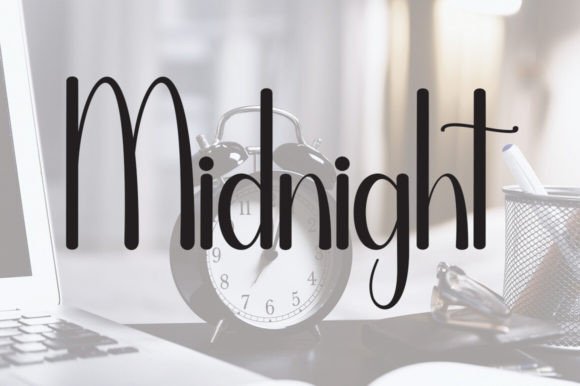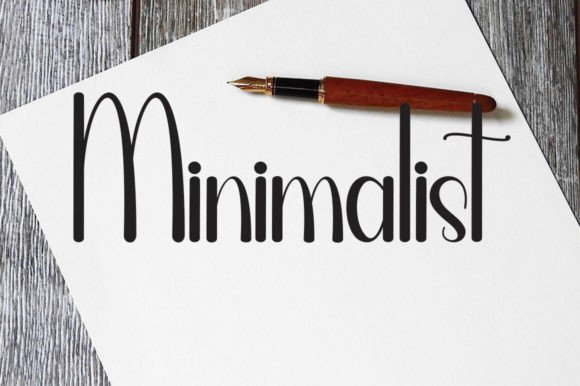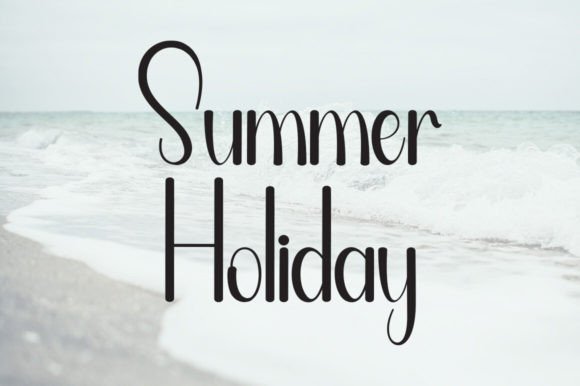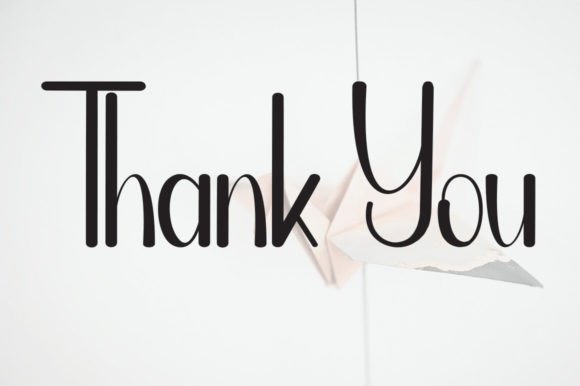
Burger Font: Adding a Touch of Whimsy to Your Designs
Are you looking for a font that can add a dash of sweetness and romance to your designs? Look no further than the Burger Font! This beautiful, cursive handwritten font is perfect for a variety of design projects, from branding and packaging to wedding invitations and social media graphics.
What is Burger Font?
Burger Font is a sweet and cursive handwritten font that is designed to bring a touch of whimsy and playfulness to your designs. Its gentle curves and flowing lines make it perfect for creating beautiful, eye-catching text that will capture the attention of your audience.
Key Features of Burger Font
- Sweet and Cursive Handwritten Style: Burger Font features a beautiful, cursive handwritten style that is perfect for adding a touch of elegance and sophistication to your designs.
- Versatile and Flexible: This font is highly versatile and can be used on a variety of design projects, from logos and branding to social media graphics and wedding invitations.
- Easy to Read: Despite its cursive style, Burger Font is easy to read and understand, making it perfect for use in body text and other applications where legibility is important.
- Highly Customizable: With Burger Font, you can easily customize the font to fit your design needs, from changing the color and size to adding effects and textures.
Design Ideas Using Burger Font
Burger Font is a versatile font that can be used on a wide range of design projects. Here are some ideas to get you started:
- Wedding Invitations: Add a touch of romance and elegance to your wedding invitations with Burger Font.
- Branding and Packaging: Use Burger Font to create beautiful, eye-catching branding and packaging for your business or product.
- Social Media Graphics: Create stunning social media graphics with Burger Font, from Facebook posts to Instagram stories.
- Logos and Icons: Use Burger Font to create beautiful, custom logos and icons for your business or brand.
Why Choose Burger Font?
So why choose Burger Font for your design projects? Here are just a few reasons:
- Unique and Eye-Catching: Burger Font is a unique and eye-catching font that will help your designs stand out from the crowd.
- Easy to Use: This font is easy to use and customize, making it perfect for designers of all skill levels.
- High-Quality: Burger Font is a high-quality font that is designed to deliver beautiful results, every time.
In conclusion, Burger Font is a beautiful, cursive handwritten font that is perfect for adding a touch of whimsy and romance to your designs. With its versatile style, ease of use, and high-quality design, it’s the perfect choice for designers and crafters looking to create stunning text and graphics. So why wait? Download Burger Font today and start creating beautiful designs that will capture the attention of your audience!